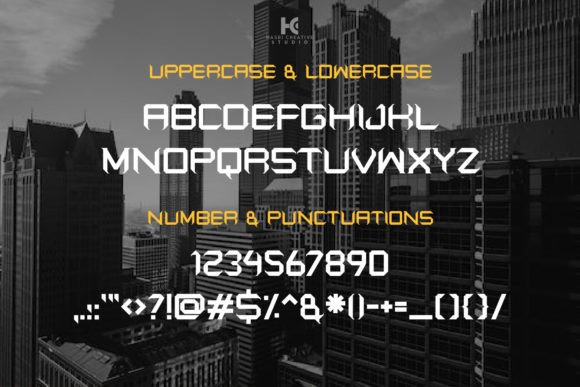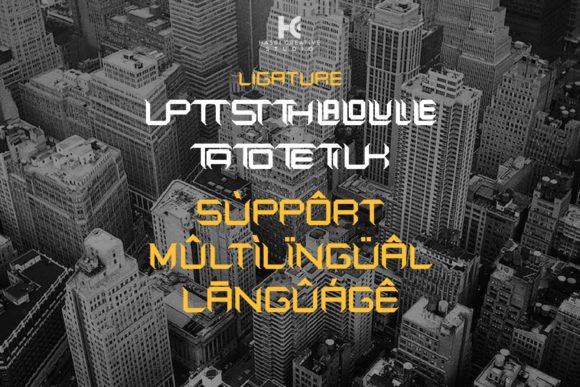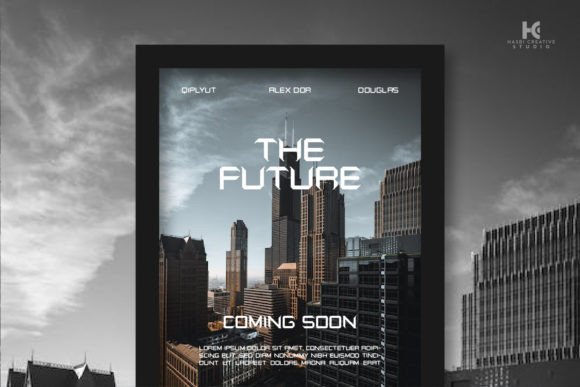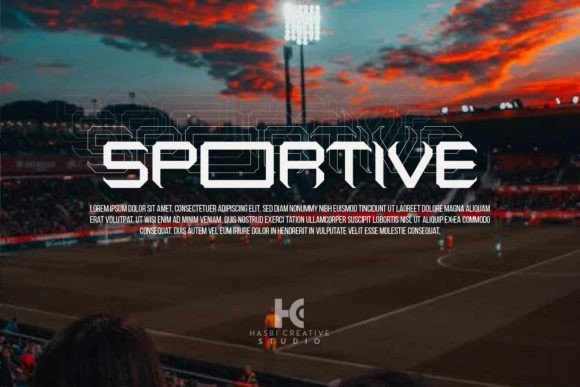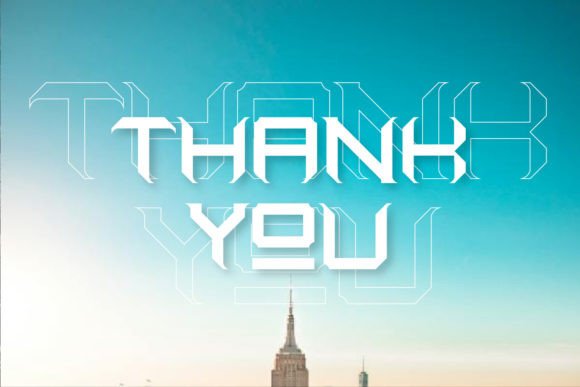
Introduction to Exotiqe Font
Exotiqe is a Display Font – All-Capital Font, It is perfect for headings, flyers, greeting cards, product packaging, book covers, printed quotes, logotypes, apparel designs, album covers, etc.